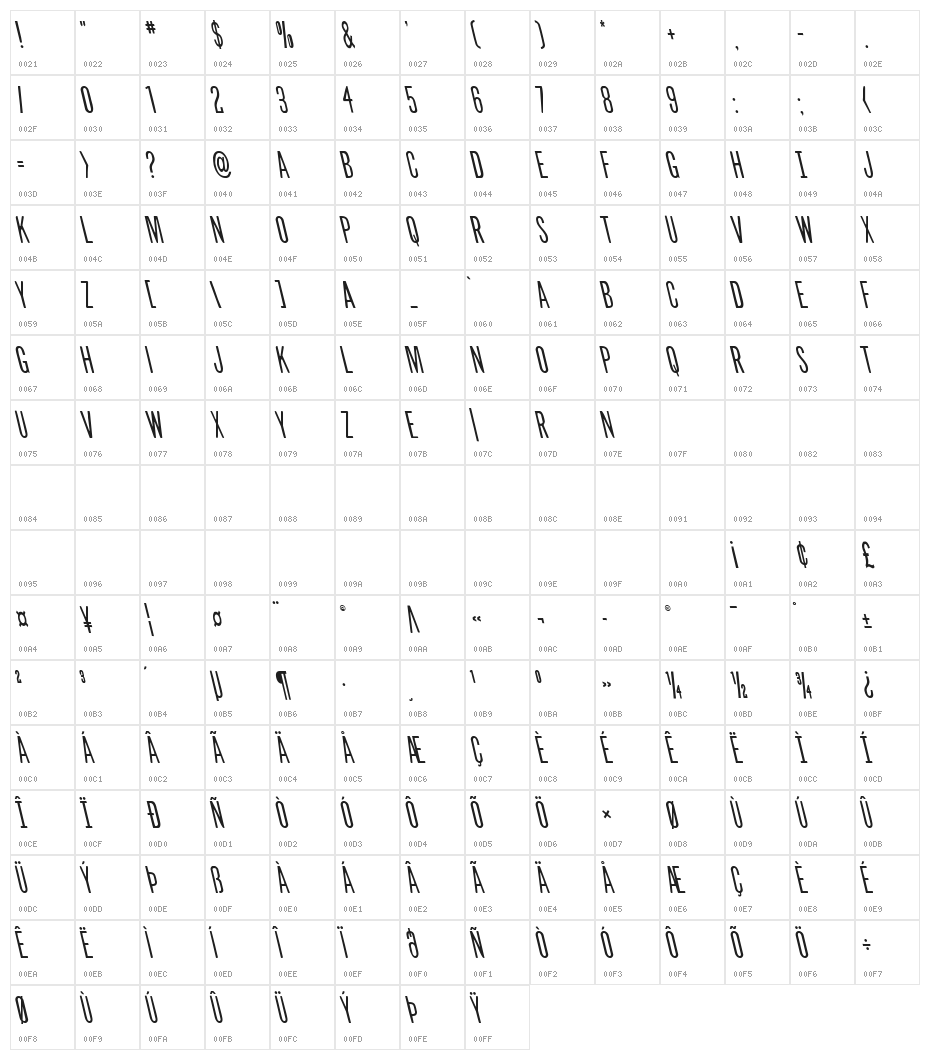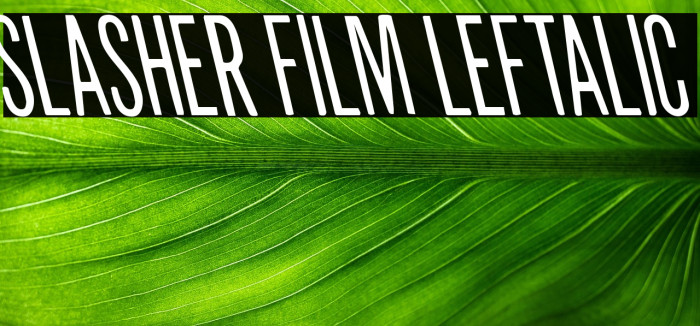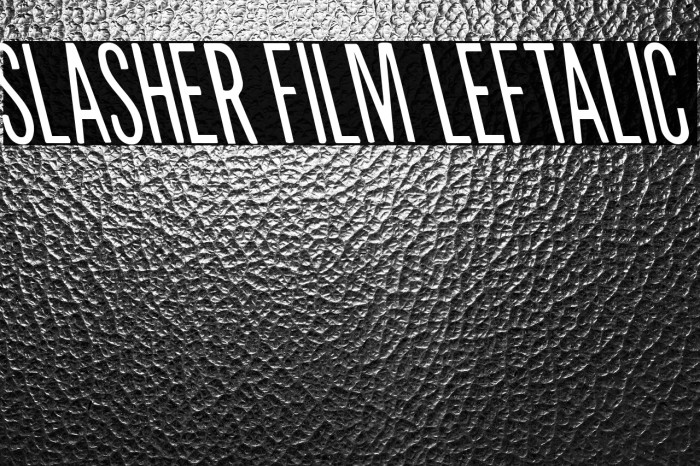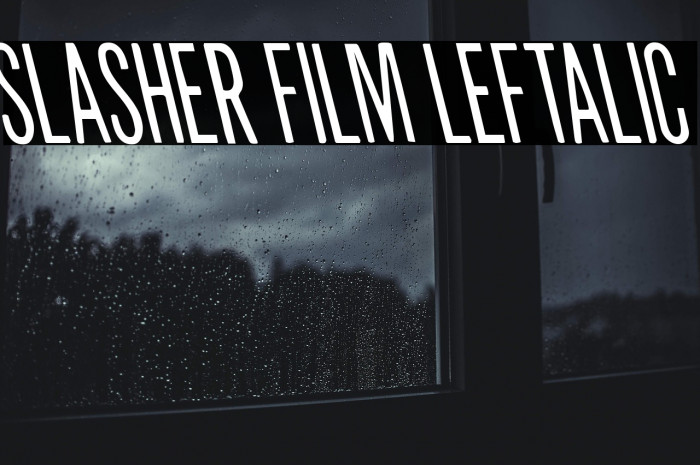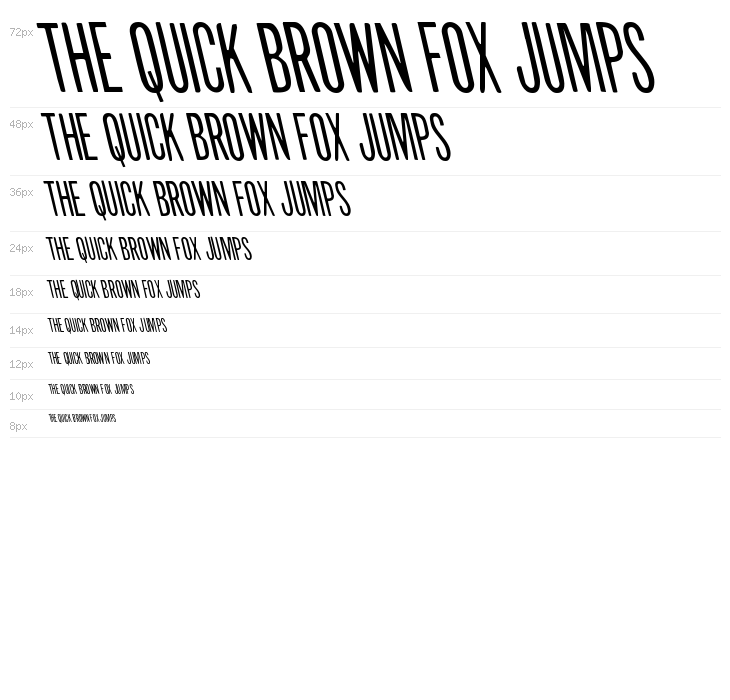
Slasher Film Leftalic Font
Slasher Film Leftalic Description
This font features a distinct slanted style, giving it a dynamic and edgy appearance. The characters are elongated and slightly condensed, which adds to its unique aesthetic. The uppercase and lowercase letters maintain a consistent slant, creating a cohesive look across the alphabet. The numerals and special characters follow the same design principles, ensuring uniformity. The strokes are consistent in thickness, providing a clean and modern feel. This font is particularly suitable for projects that require a bold and striking visual impact.
| Proposed Projects | Ideal for movie posters, edgy branding, and modern graphic design projects. |